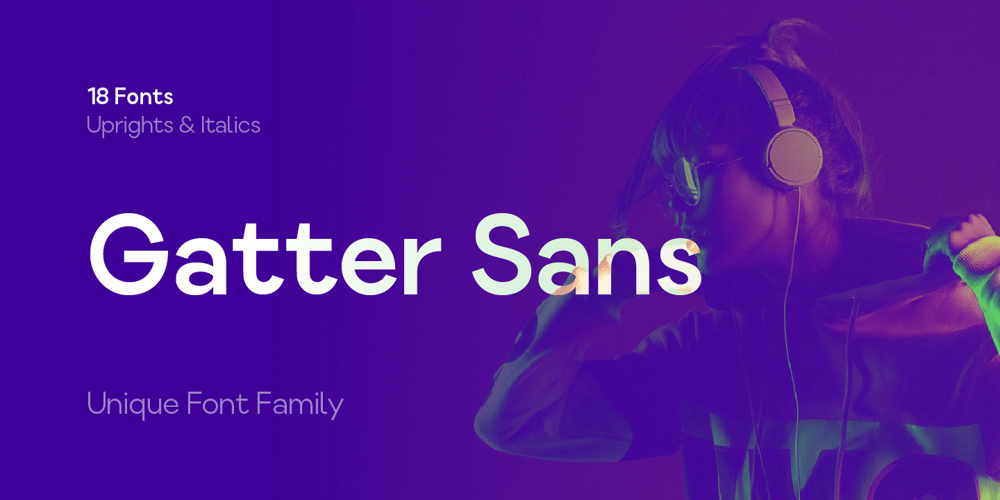
Gatter Sans
Gatter Sans font
Gatter Sans Font Family was designed by Serdar Öztürk and published by Serdar Ozturk. Gatter Sans contains 18 styles and family package options. Gatter Sans is a modern family with lots of alternate glyphs with geometric lines. Thanks to the crowd family, it will give you a great advantage in your poster works. You can also benefit from this creative and original family for your digital designs, ui/ux applications, and corporate identities.